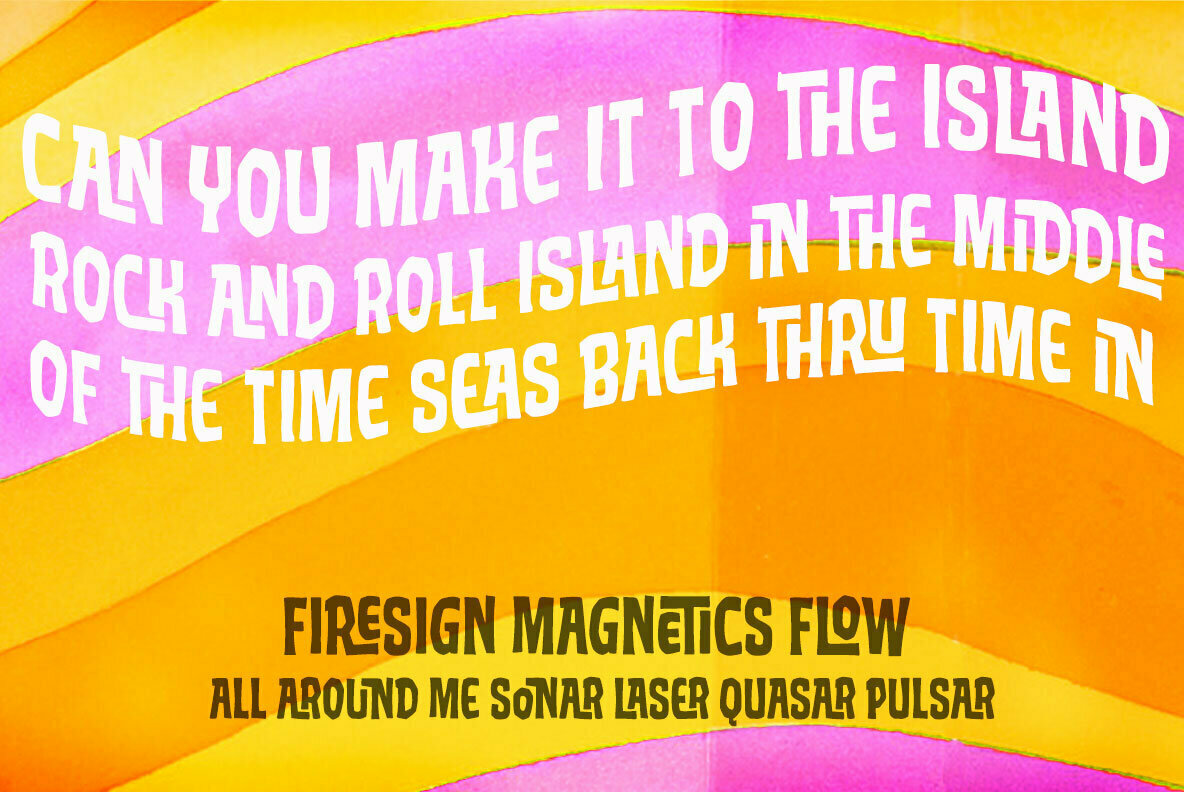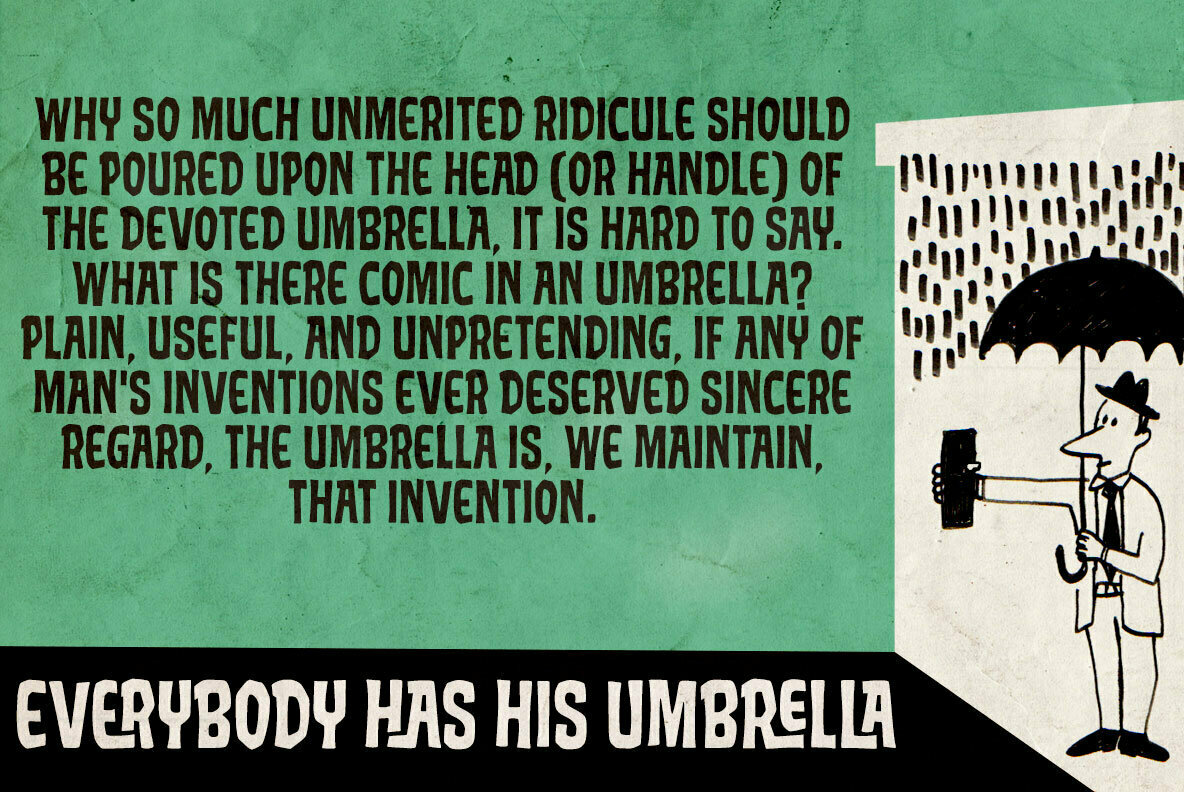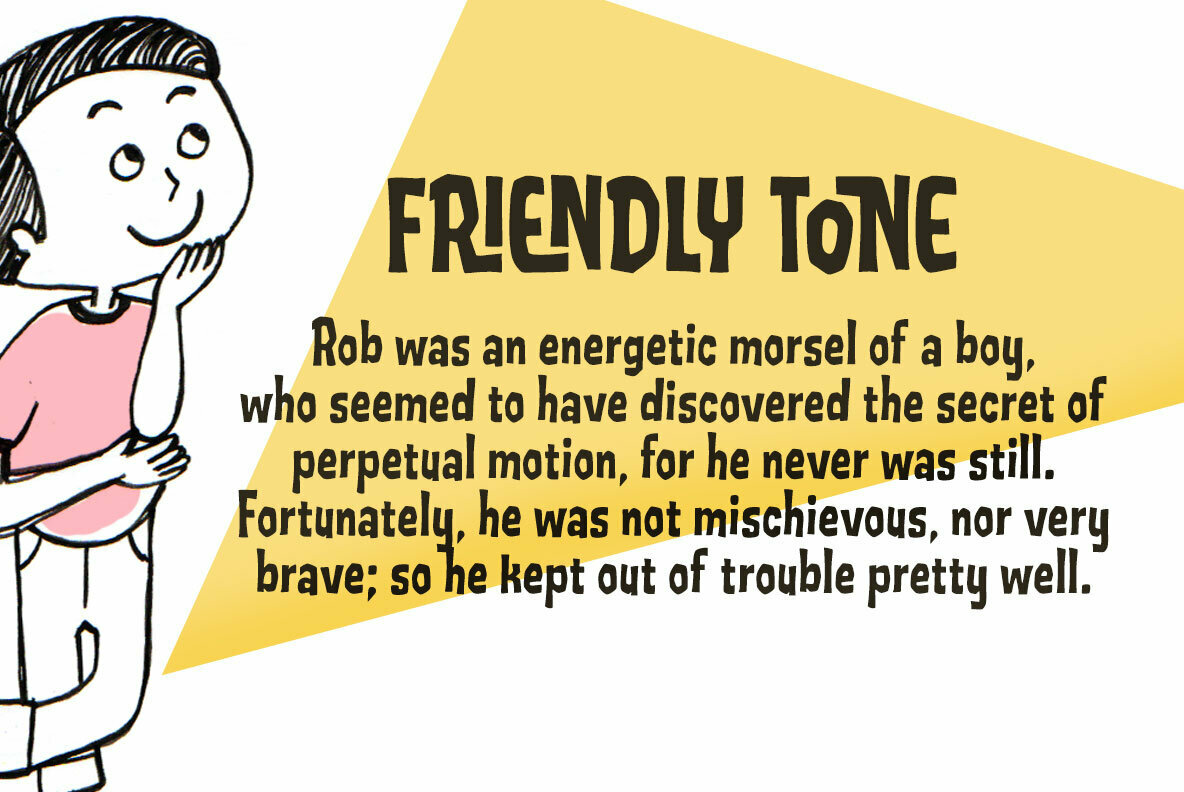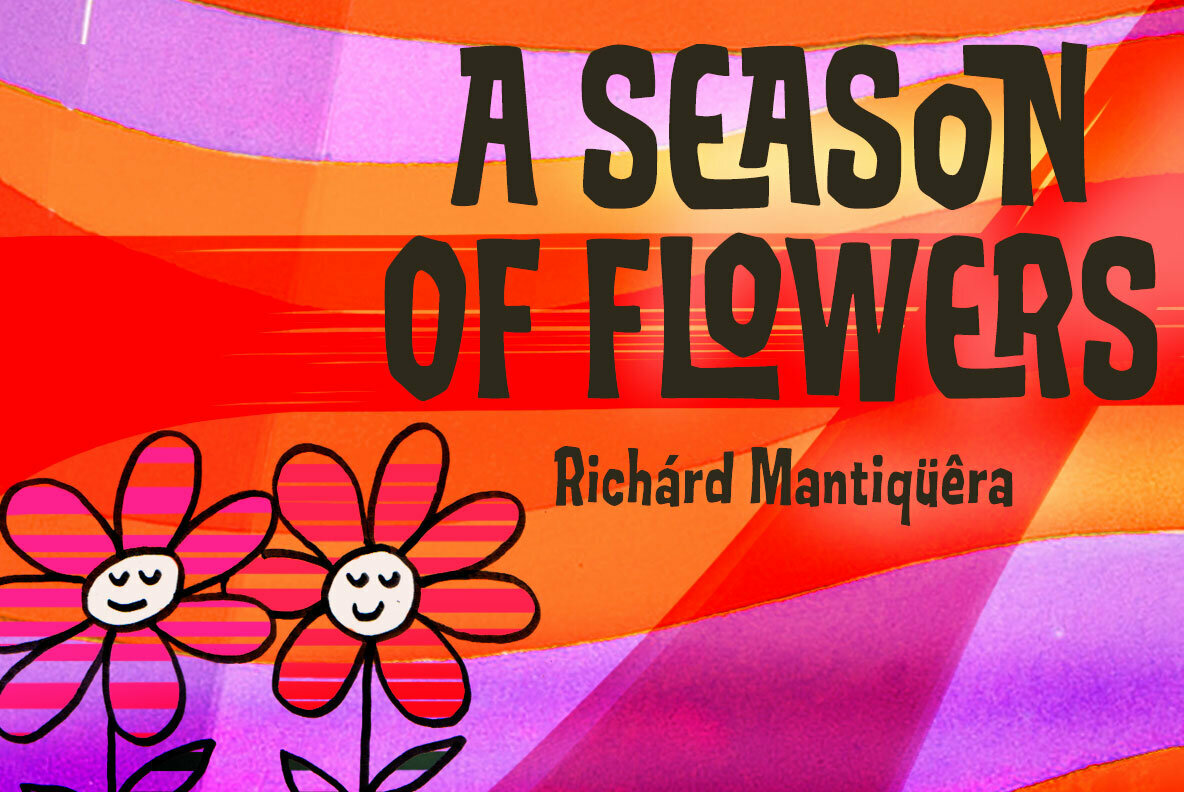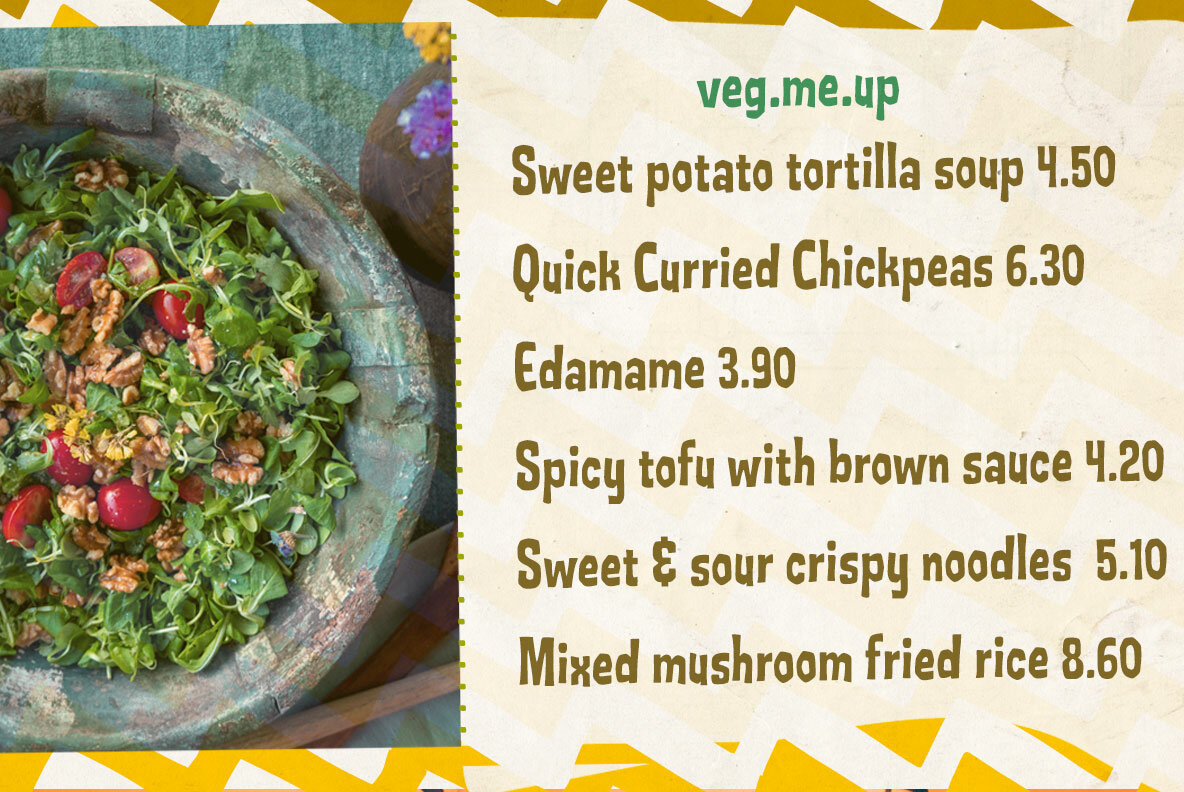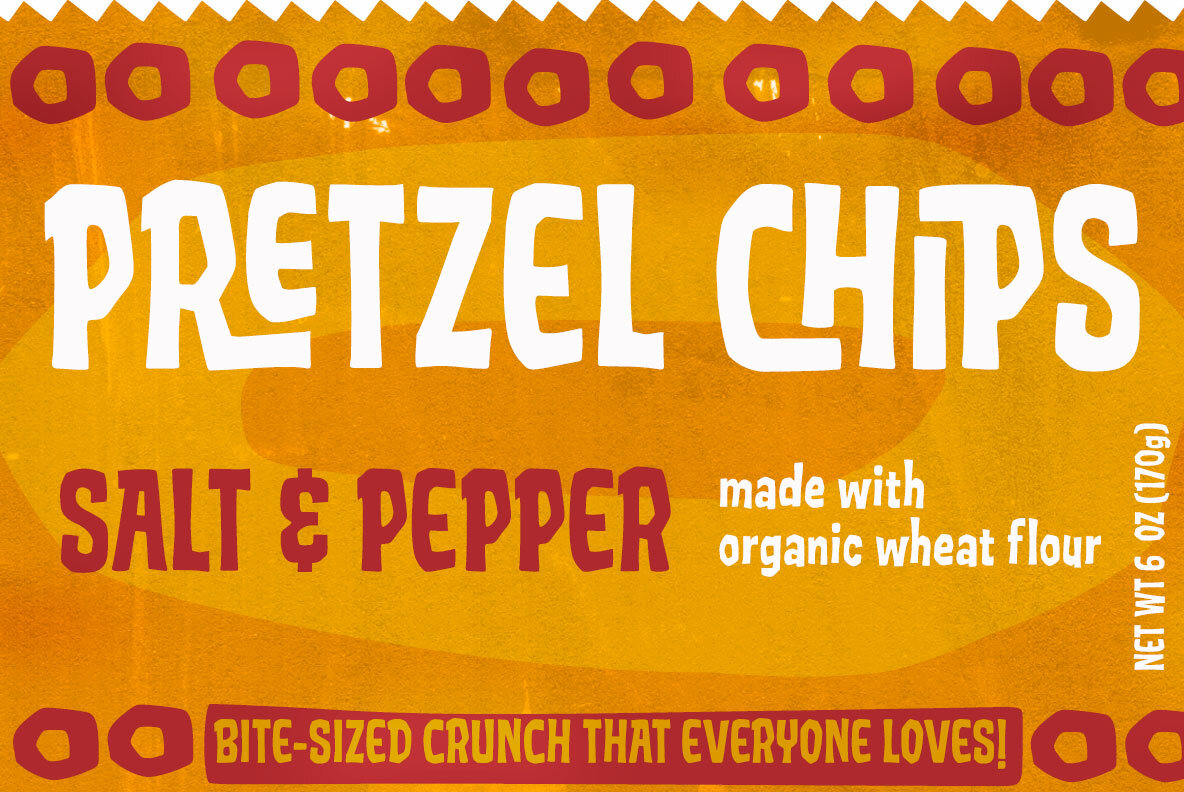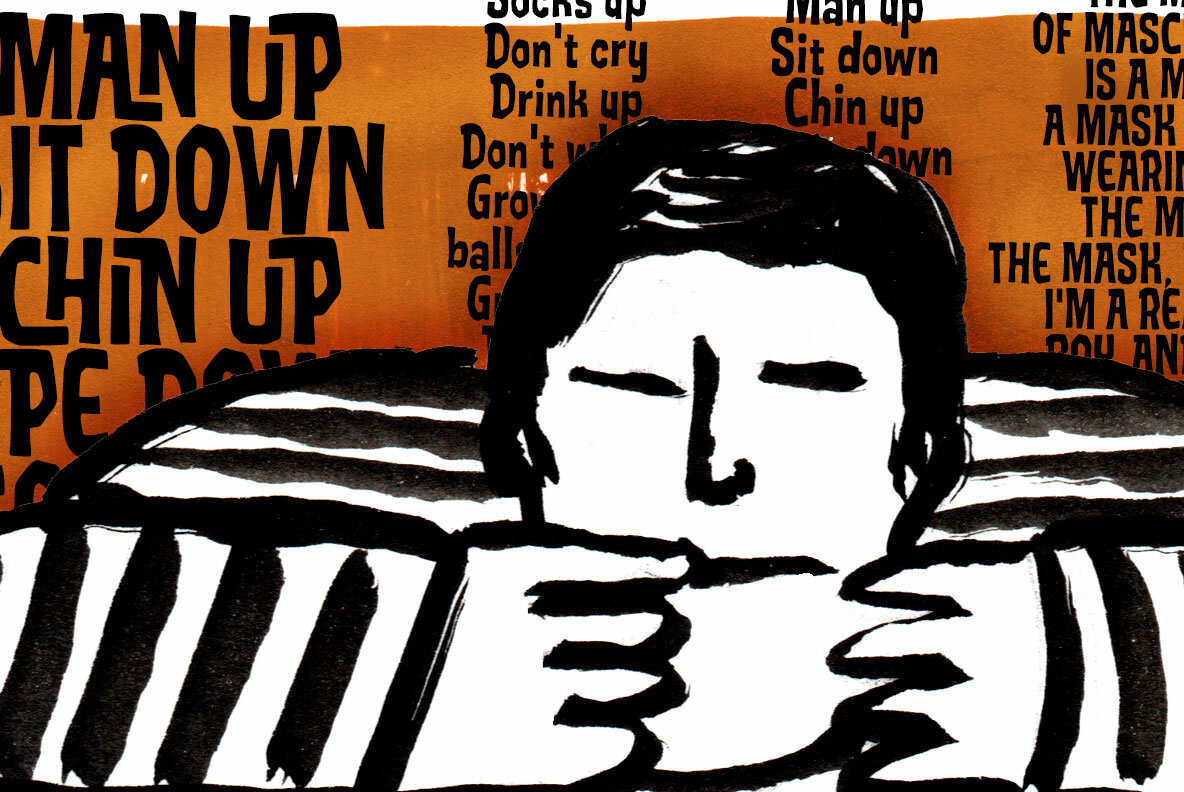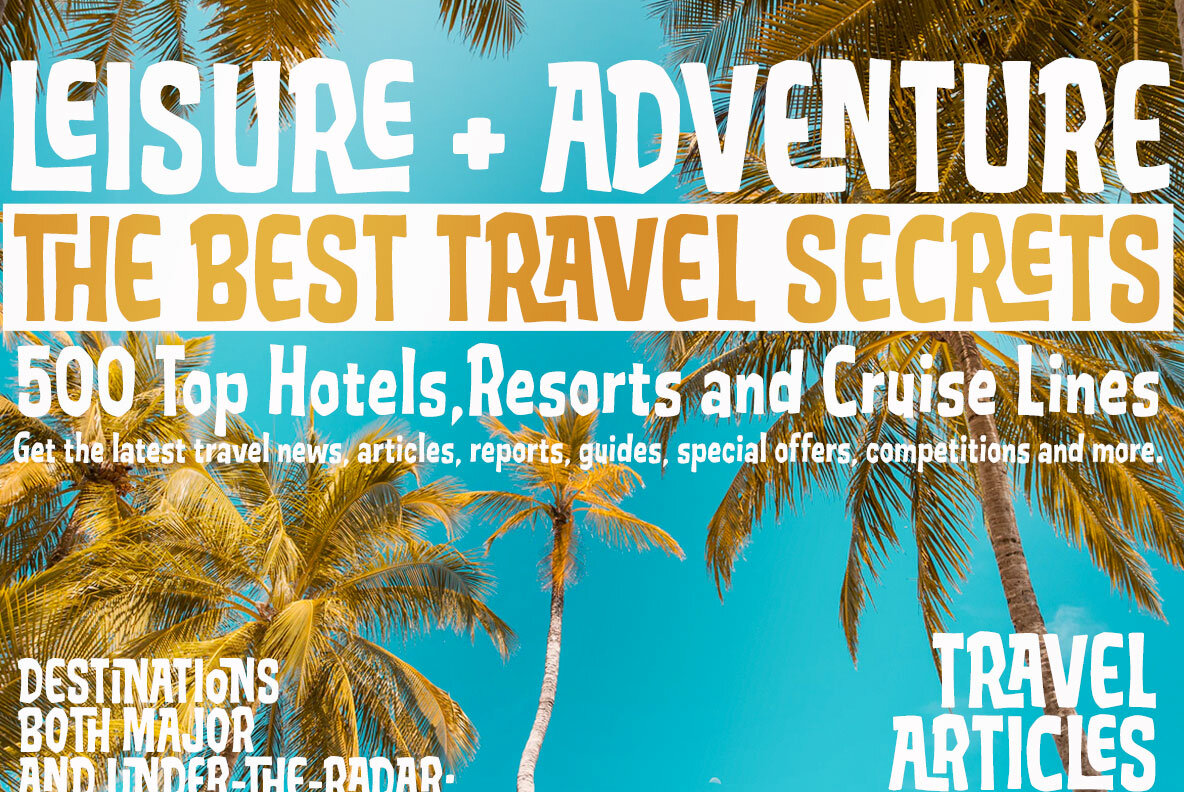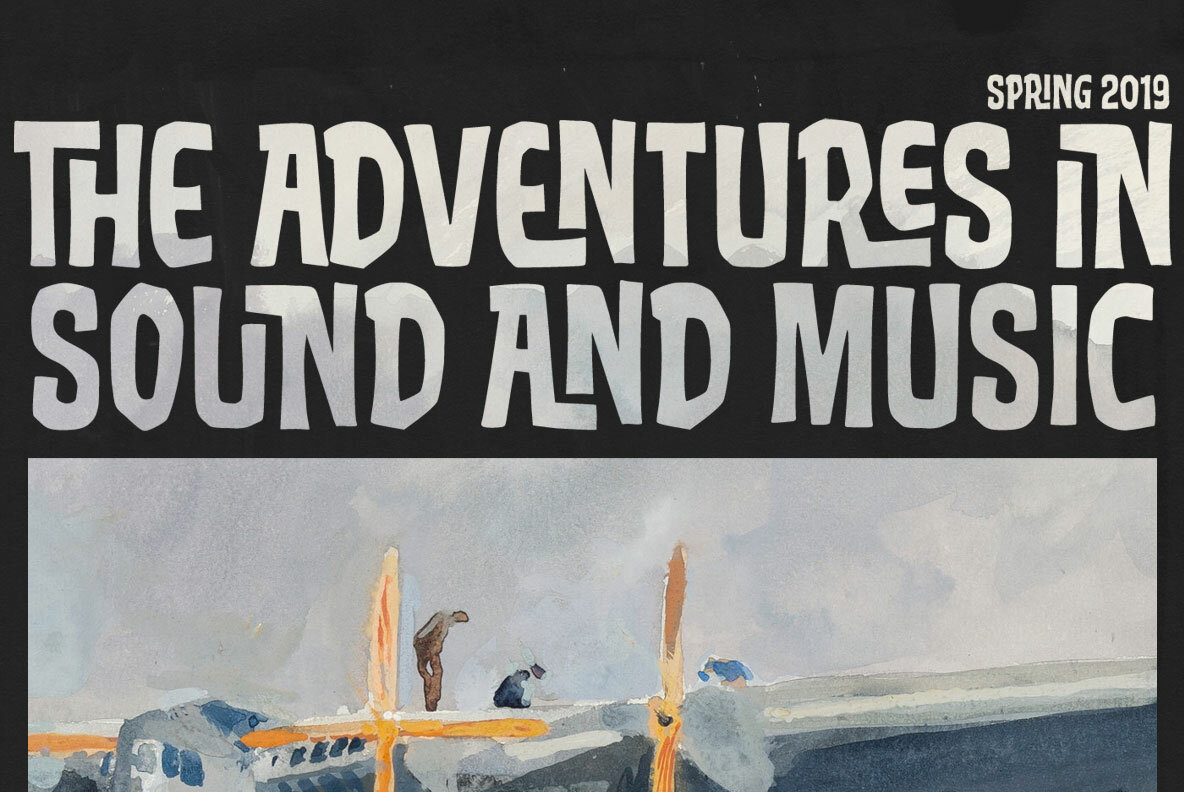
Pedrita Font
Pedrita
Sometimes you want to go unnoticed, sometimes you don't. This font is
definitely for the second option.
Pedrita is a generous type, a bit bold, somewhat showy, quite authentic.
When you need that extra-something, go with caps and turn on the stylish
interlocking pairs: added eye-catchingness guaranteed. And let the good
times roll!